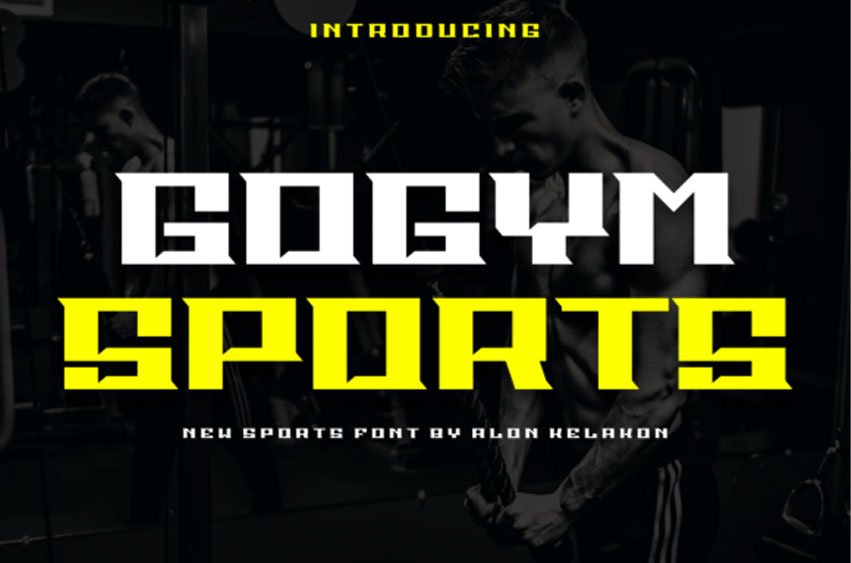
Gogym Sports Font is a modern and cool display font.
Whatever the topic, this font will be a wonderful asset to your font library, as it has the potential to enhance any creation.